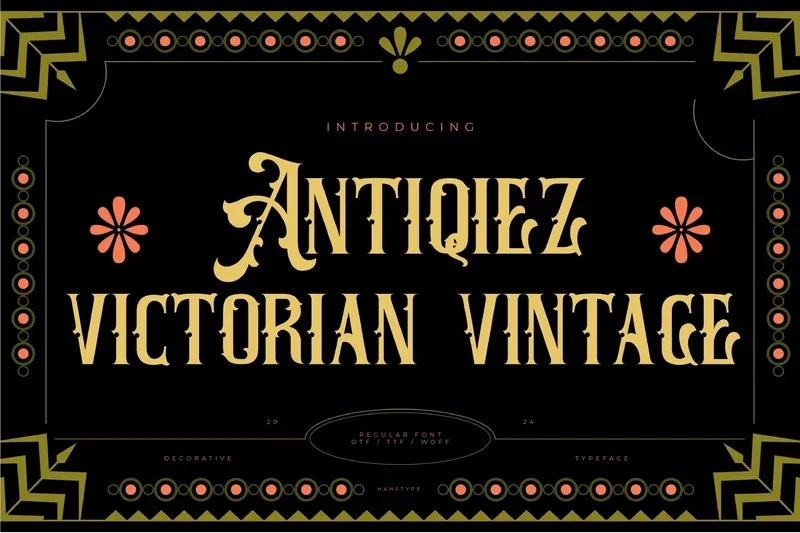
Antiqiez – Victorian Vintage Font
Antiqiez is a vintage-inspired serif font that seamlessly blends timeless elegance with undeniable strength. Designed for those who appreciate the boldness of classic typography, it stands as a powerful display typeface with a distinctive character.